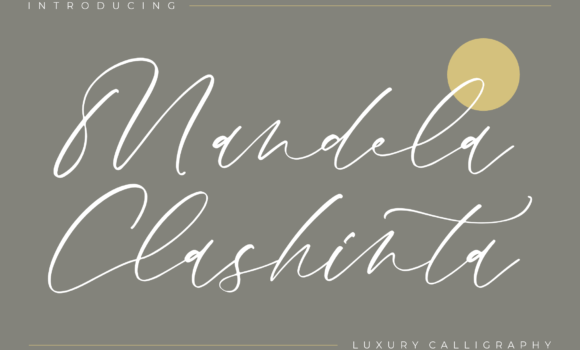
Mandela Clashinta Font – Free Download Introduction to Mandela Clashinta Font Mandela Clashinta is a luxury calligraphy font, created by Storytype that has it own unique style & modern look. 📸 Preview Gallery 6 images 📌 Product Name Mandela Clashinta